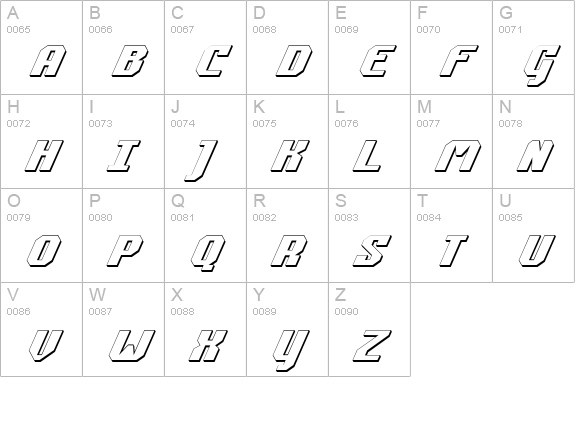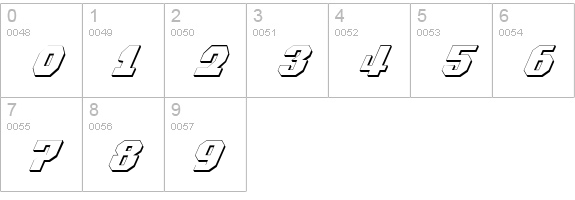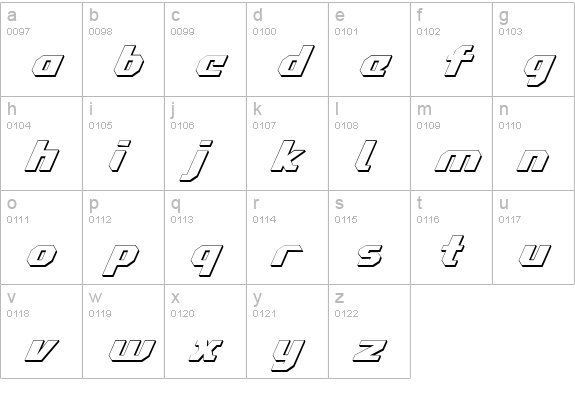
Commonwealth 3D Italic is a distinctive, italic variant in the Commonwealth typeface family \xE2\x80\x94 well suited to design and typography projects.
Introducing Commonwealth 3D Italic font, a stunning typeface that adds depth and dimension to your designs with its bold and elegant appearance. This unique font features intricate 3D effects that make your text stand out and captivate the viewer's attention. Commonwealth 3D Italic font is perfect for creating eye-catching headlines, logos, posters, and more. Its sleek and modern design exudes sophistication and style, making it a versatile choice for a wide range of projects. And the best part is, Commonwealth 3D Italic font is available for free download at FontsMarket.com. Don't miss out on the opportunity to enhance your designs with this striking and impactful typeface. Download Commonwealth 3D Italic font today and take your projects to the next level!